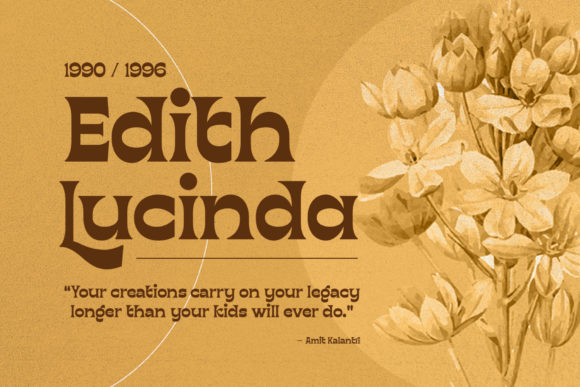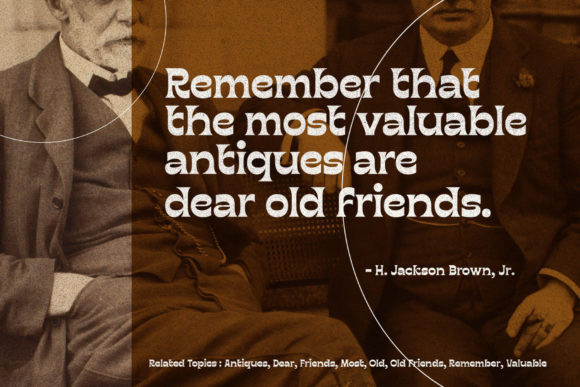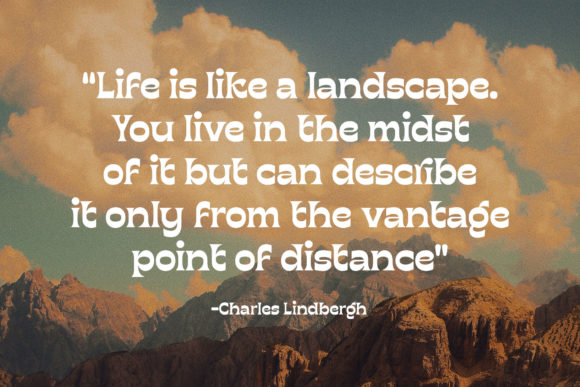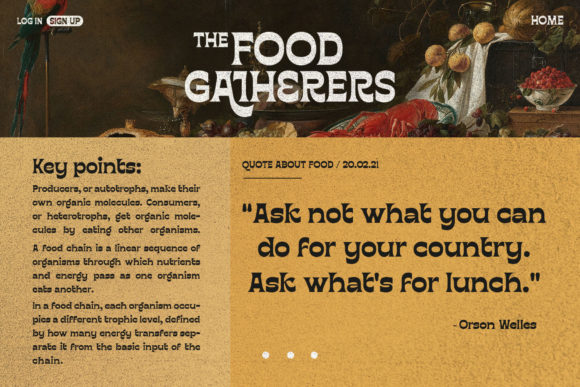
Unlock the Power of Borensa Font
Have you ever stared at a blank canvas, eager to unleash your creativity, but struggling to find the perfect font to bring your vision to life? That’s where Borensa Font comes in – a game-changing, bold display font that’s sure to make your designs stand out from the crowd.
Borensa Font is more than just a stylish addition to your design arsenal – it’s a powerful tool that can elevate your creations with its unique, retro flair. With its thick letters and distinctive shape, this font is perfect for making a statement, whether you’re designing a logo, creating a poster, or crafting a bold headline.
As a valuable addition to any designer’s toolkit, Borensa Font offers PUA encoding, making it easy to access all its glyphs and swashes. With Borensa Font on your side, you’ll be able to unlock new creative possibilities and take your designs to the next level.
Borensa Font Key Features
- Size: The font family includes 12 styles, ranging from Light to Black, with various weights and widths to suit different design needs.
- Unique Characteristics: The font features a unique blend of modern and traditional elements, with intricate details and ornaments that add a touch of elegance and sophistication.
- Language Support: Borensa Font supports a wide range of languages, including Latin, Cyrillic, and Greek scripts, making it suitable for global design projects.
- Font Metrics: The font has a x-height of 500, an ascender height of 750, and a descender height of 250, providing a balanced and harmonious design.
Borensa Font Review
Initially, I was drawn to Borensa Font’s unique and playful aesthetic ✨. The combination of rounded edges and geometric shapes creates an interesting contrast that can add a lot of visual interest to designs. The font also has a friendly and approachable feel, making it suitable for various applications such as branding, packaging, and digital interfaces.
However, there are some limitations to consider ⚠️. One of the main issues is the font’s limited character set, which may not be suitable for complex or long-form text. Additionally, some users may find the font’s irregular spacing and line height to be distracting or difficult to read. Furthermore, the font’s unique aesthetic may not be to everyone’s taste, and some users may find it too busy or overwhelming.
- Unique and playful aesthetic ✨
- Interesting contrast between rounded edges and geometric shapes
- Approachable and friendly feel
- Suitable for branding, packaging, and digital interfaces
- Limited character set
- Irregular spacing and line height
- Not suitable for complex or long-form text
- May be too busy or overwhelming for some users
Overall, Borensa Font is a great option for designers who want to add a touch of personality and whimsy to their designs. However, it’s essential to carefully consider the font’s limitations and ensure that it’s the right choice for the specific project.
Borensa Font Practical Application Guide
The Borensa font is a versatile and modern sans-serif font suitable for various design applications. To use it, follow these steps:
For best results, use the Borensa font for clean and modern designs, such as:
1. Corporate identity and branding materials.
2. Digital product designs, such as mobile apps and websites.
3. Editorial and publishing materials, such as magazines and newspapers.
Remember to experiment with font sizes, colors, and styles to achieve the desired design effect.